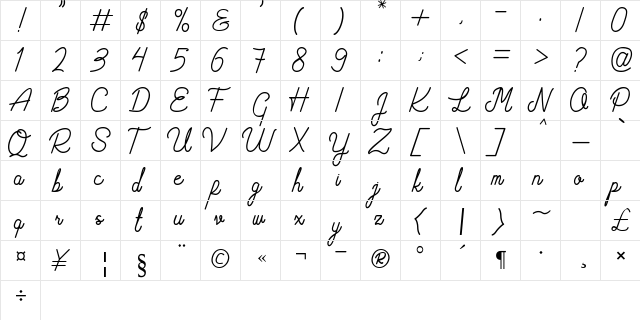
Rafflesian Poem Regular
| Designer | Rivo Dwi Adriansyah |
Design Context for Rafflesian Poem Typeface
Rafflesian Poem offers clean, dependable letterforms without strong stylistic allegiance, making it a practical choice for designers who need flexibility.